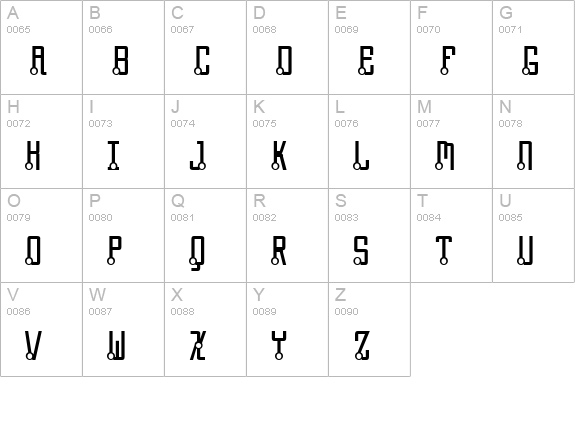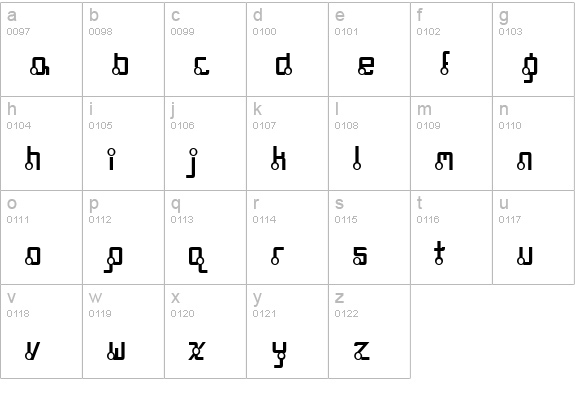
Quasidipitous Font Details
Introducing Quasidipitous, a truly remarkable font that embodies elegance, versatility, and creativity. With its captivating curves and impeccable letterforms, Quasidipitous is a typeface that effortlessly stands out from the crowd. This font is designed to captivate and enchant, making it perfect for a wide range of creative projects. Whether you're designing a logo, crafting a headline, or creating eye-catching social media graphics, Quasidipitous will undoubtedly elevate your designs to new heights. But what truly sets Quasidipitous apart is its unique blend of elegance and accessibility. You see, this font manages to strike the perfect balance between sophistication and readability, making it suitable for both professional and personal use. And the best part? Quasidipitous is freely available to download at FontsMarket.com. That's right, you can now enjoy the sheer beauty and versatility of this font without spending a dime. We believe that great design should be accessible to all, and Quasidipitous exemplifies this philosophy. So, whether you're a seasoned designer or a novice enthusiast, Quasidipitous is here to empower your creativity. Download it today and unlock a world of endless possibilities. Let Quasidipitous be your muse as you embark on your design journey.